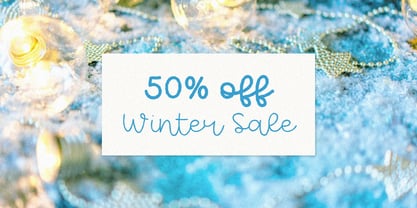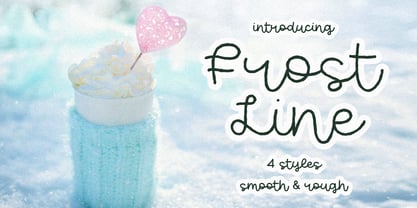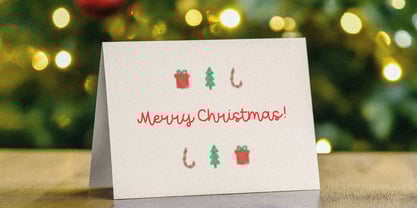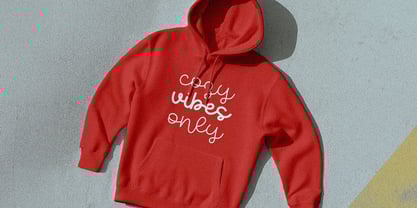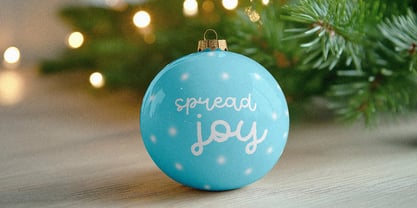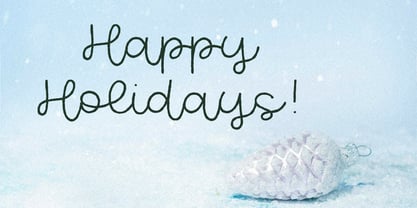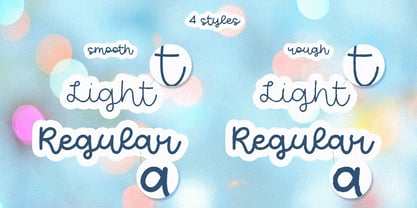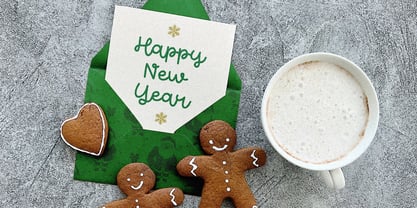
Frost Line
The Frost Line Font Family was designed by Fidan Aslanova and published by Fidan Fonts. Frost Line contains 4 styles and family package options. More about this family
Introducing Frost Line, a captivating typeface meticulously crafted to embody the delicate beauty of a frosty winter morning. Inspired by the intricate patterns of ice on a windowpane and the joyful spirit of the holiday season, Frost Line is designed to bring an enchanting allure to all your winter-themed projects. This versatile font family offers four distinct styles, giving you unparalleled flexibility to capture the perfect seasonal mood: • Frost Line Regular: A solid, elegant foundation, perfect for main titles and clear messaging, evoking the crisp clarity of a winter day. Its smooth edges offer refined readability. • Frost Line Light: A more ethereal and graceful rendition, ideal for delicate accents, subheadings, or when a touch of sophisticated lightness is desired. Its clean lines provide a chic, understated charm. But the magic doesn't stop there. Both Regular and Light versions come with a unique 'Rough' counterpart: • Frost Line Regular Rough and Frost Line Light Rough introduce an organic, tactile texture. These variants are reminiscent of snowflakes clinging to a windowpane or the charming imperfections of a vintage holiday print. They add a touch of authentic charm, warmth, and a handcrafted feel, perfect for projects seeking rustic elegance and a cozy, inviting atmosphere. Whether you're designing festive invitations, creating heartwarming holiday cards, crafting winter-themed branding, or simply adding a touch of seasonal enchantment to any graphic, Frost Line provides the perfect blend of elegance, whimsy, and genuine winter charm. Let Frost Line transform your designs into a winter wonderland of warmth and wonder. Where Winter's Artistry Meets Your Design!